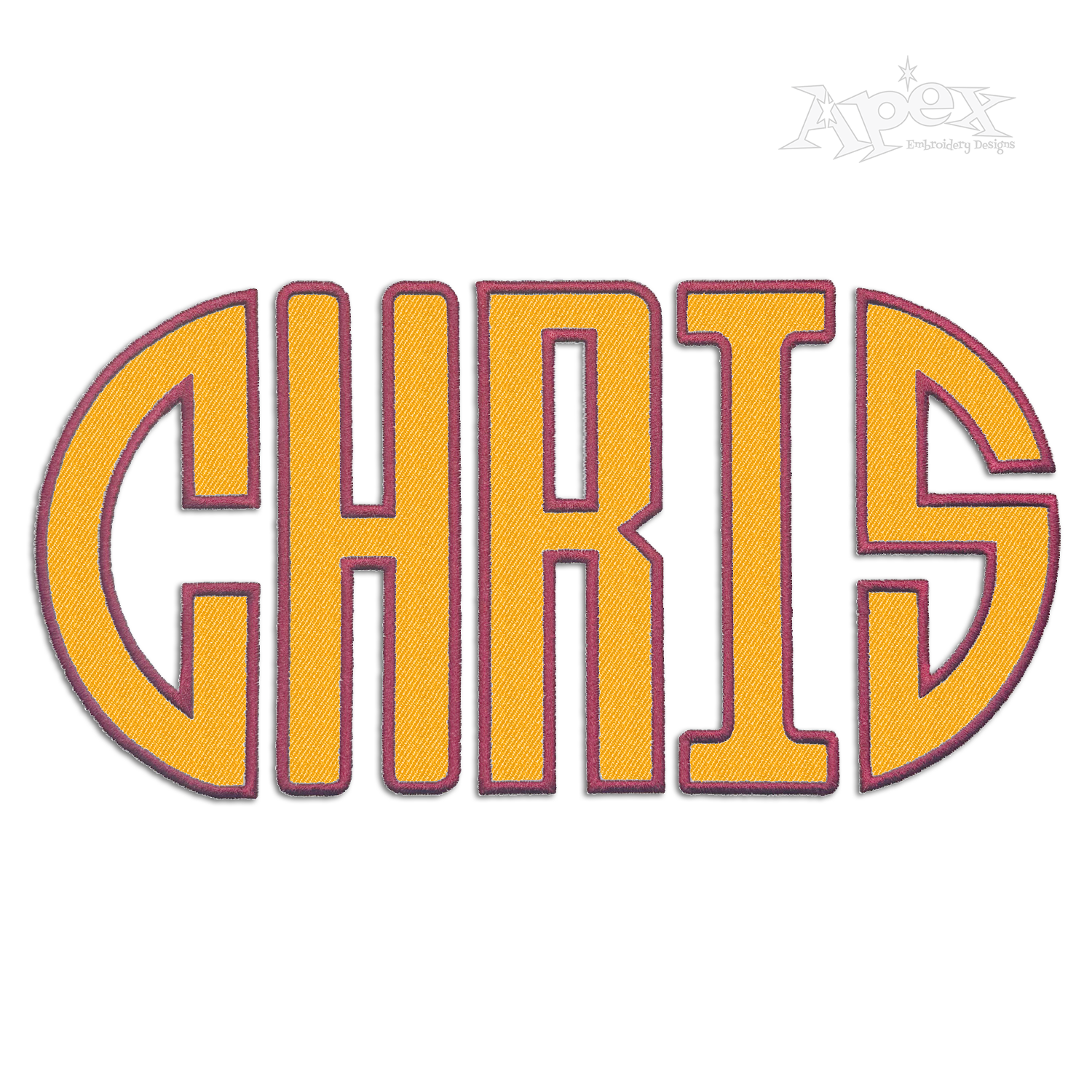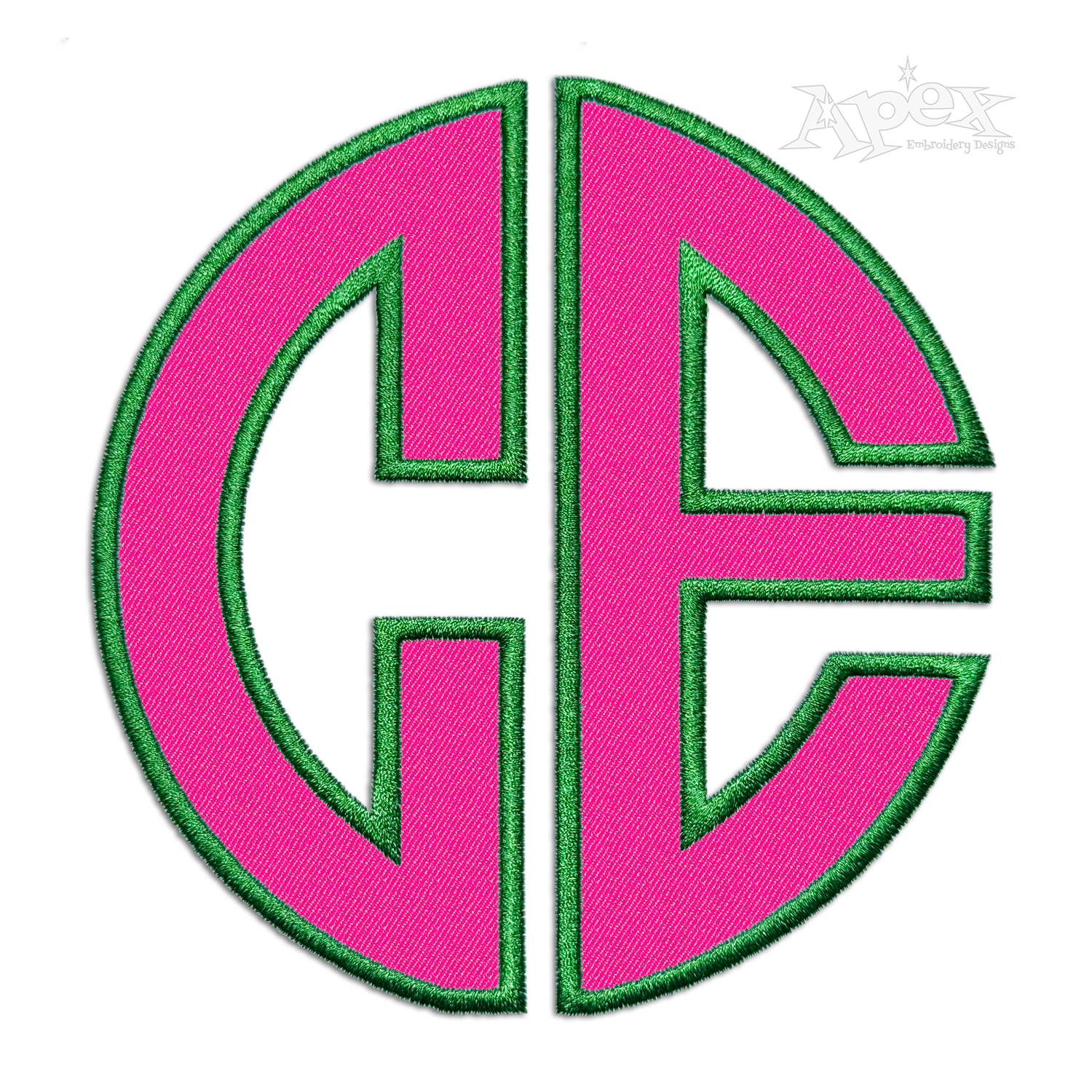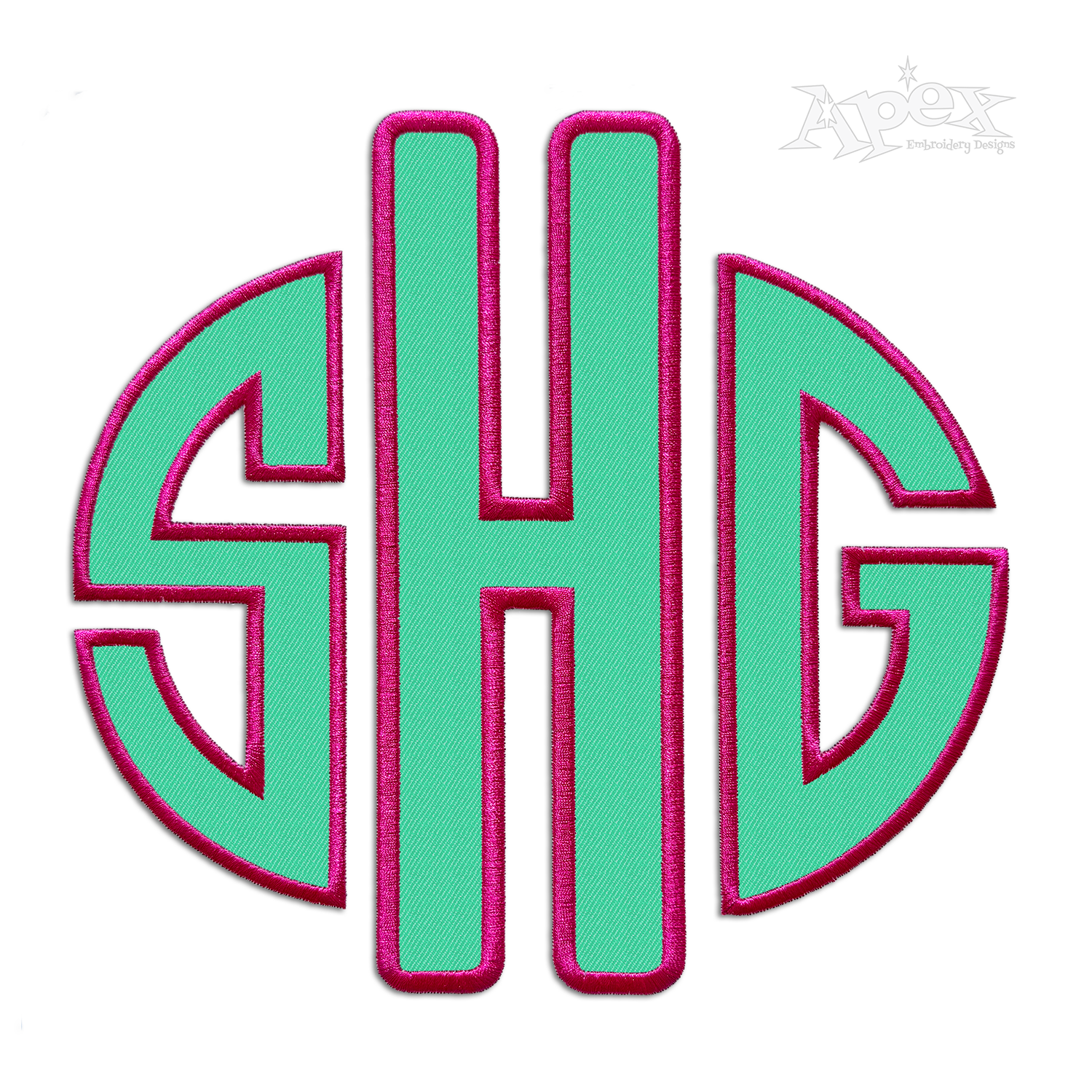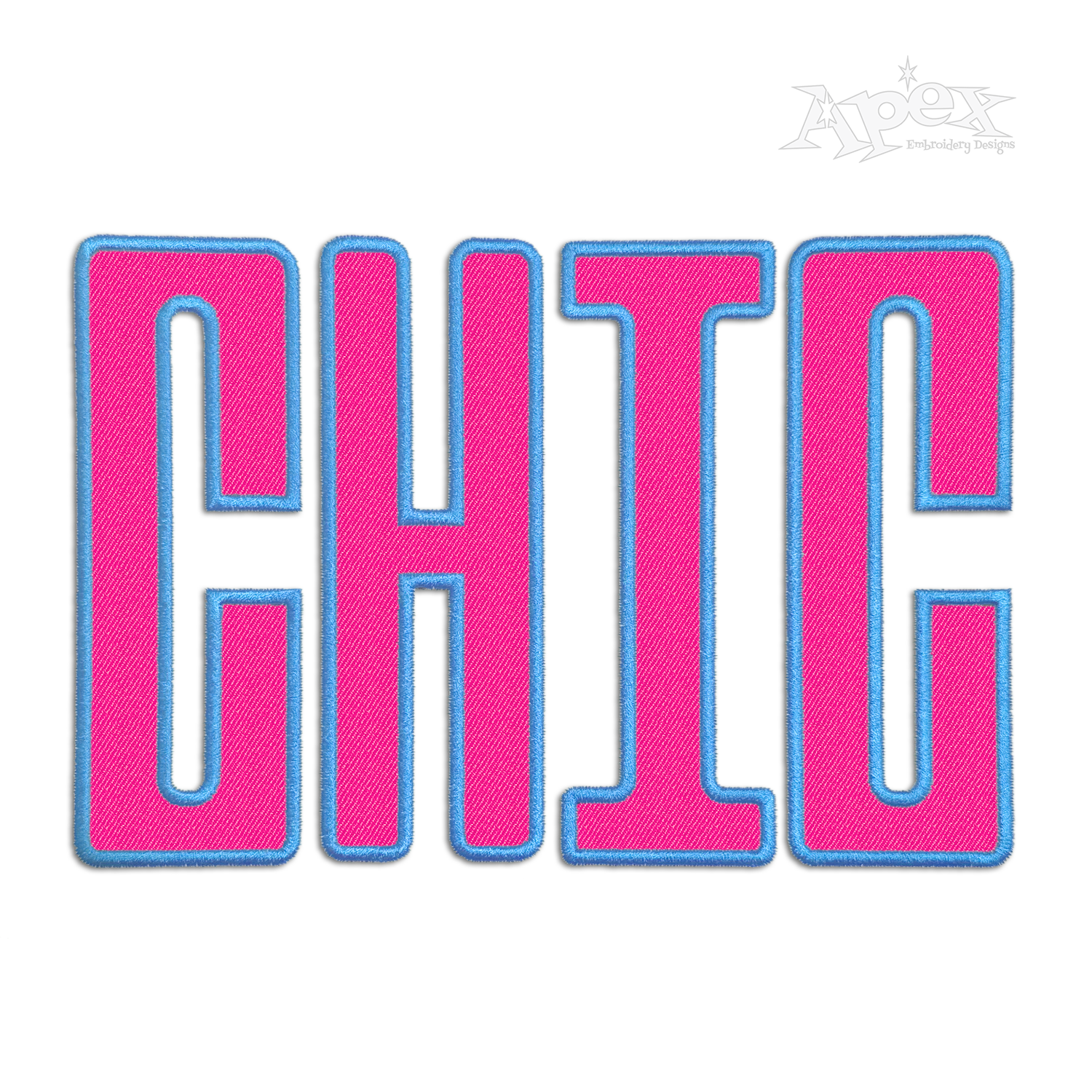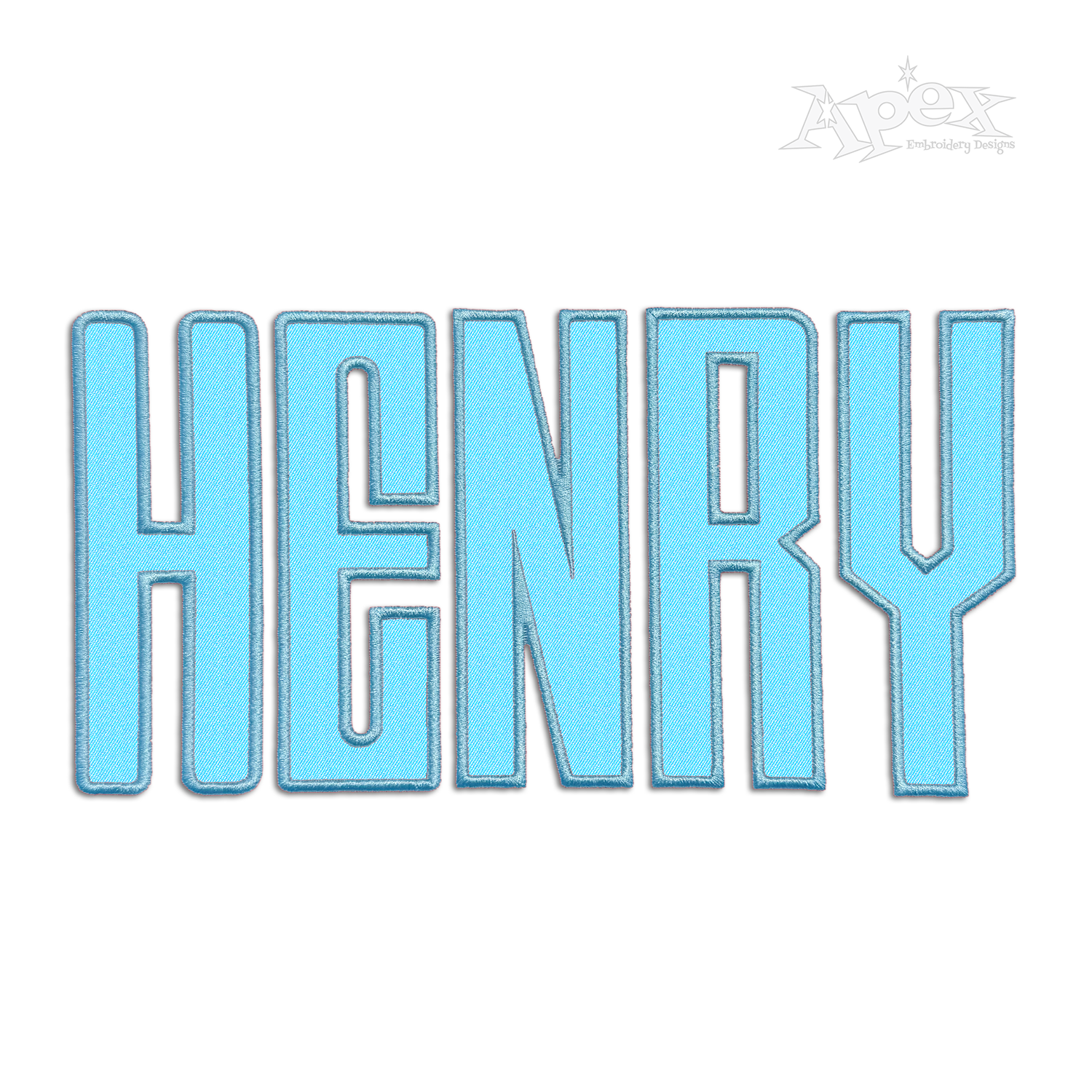
Oval Applique Embroidery Font
There is a timeless grandeur to classic medallion architecture, where balanced symmetry transforms simple lettering into an enduring personal crest. The Oval Applique Embroidery Font was born from our appreciation for vintage estate linens and bespoke collegiate traditions—a design crafted to give fabric appliqués an unmistakably tailored, structural frame. When digitizing this collection, we envisioned the tactile beauty of textured fabrics nestled within crisp, lustrous satin borders, providing the ideal foundation for custom monogramming, whether you are balancing distinctive four-letter family initials or styling a full five-letter name across an heirloom piece.
Project Ideas for Oval Applique Embroidery Font
The bold perimeter and applique negative space make this font a designer favorite for mixed-media stitchery. Consider these refined applications:
- Heavyweight Canvas Totes: Pair striped ticking, crisp seersucker, or Liberty floral fabrics with deep contrasting thread to create bespoke resort wear accessories.
- Heirloom Bedding & Euro Shams: Embellish the center of crisp white linen pillow shams with tonal piqué applique for a high-end boutique hotel finish.
- Bespoke Resort Towels: Stitch sprawling 6-inch or 8-inch initials onto oversized plush Turkish cabana towels using terrycloth or water-resistant outdoor textiles.
- Personalized Nursery Quilts: Frame newborn names using soft jersey knits or vintage chambray to create a cherished childhood treasure.
- Collegiate-Style Outerwear: Transform varsity jackets, oversized hoodies, or wool vests with traditional felt or wool applique lettering.
Because the oval geometry naturally establishes its own self-contained frame, alignment is both intuitive and visually impactful across a variety of textiles:
- Center Chest & Back Panels: Position the 5-inch or 6-inch design dead center on sweatshirts, robes, or denim jackets, aligning the vertical apex with the collar center.
- Pillow & Sham Centers: Calculate the exact intersection of diagonal corners to center the oval squarely within the decorative face of 18- to 24-inch cushions.
- Between Canvas Straps: When personalizing structural market bags and duffels, float the monogram directly between the vertical handle webbing for an architectural, balanced look.
- Lower Blanket Border: Float an 8-inch crest 4 to 6 inches above the hemstitch or fringe on the lower right corner of a folded heirloom throw.
Oval Applique Embroidery Font Craft & Letterform Details
Digitizing applique letters that form a cohesive oval silhouette requires meticulous attention to curve dynamics and stitch integrity. Rather than simply scaling generic lettering, each character in this collection has been shaped with radial curves and smooth tapers that harmonize when nestled beside adjacent letters. The outer contour maintains a confident, architectural curve, while the inner apertures preserve generous breathing room to showcase your chosen applique fabrics.
Technically, each glyph is structured with a multi-step sequence designed for pristine, stress-free execution on your embroidery machine. A delicate placement run outlines the exact footprint on your base fabric, followed by a sturdy material tack-down stitch engineered to hold down raw edges securely without shifting. The final crowning detail is a rich, dense satin stitch border that sweeps seamlessly around the perimeter. Digitized with specialized corner turns and balanced pull compensation, the satin edge provides complete, opaque coverage that seals fabric edges cleanly and catches the light with magnificent, artisan brilliance.